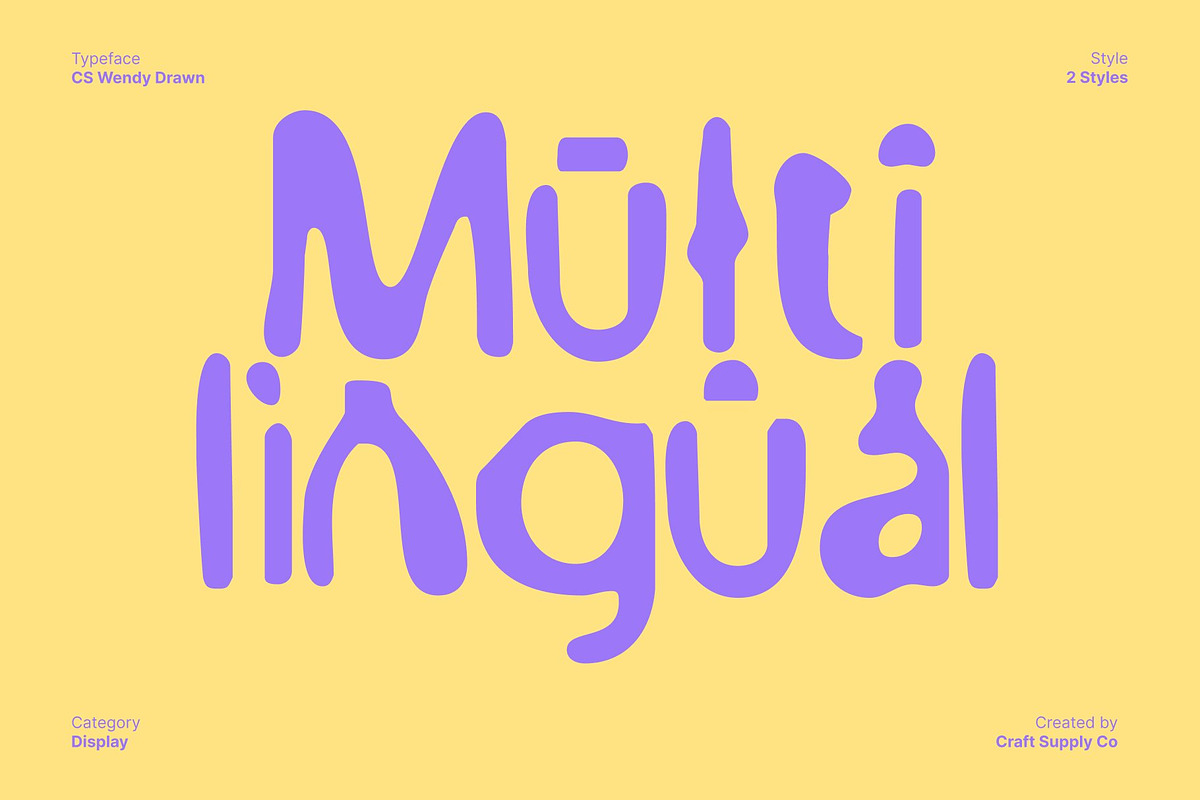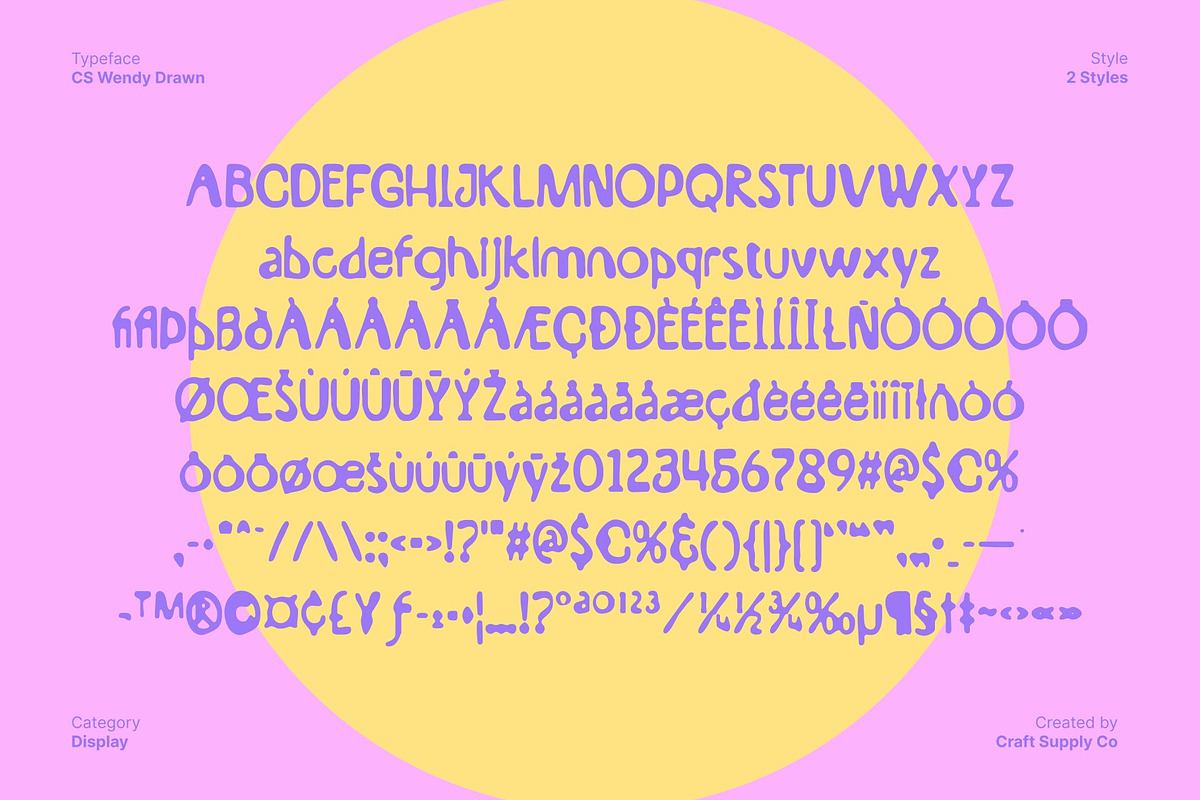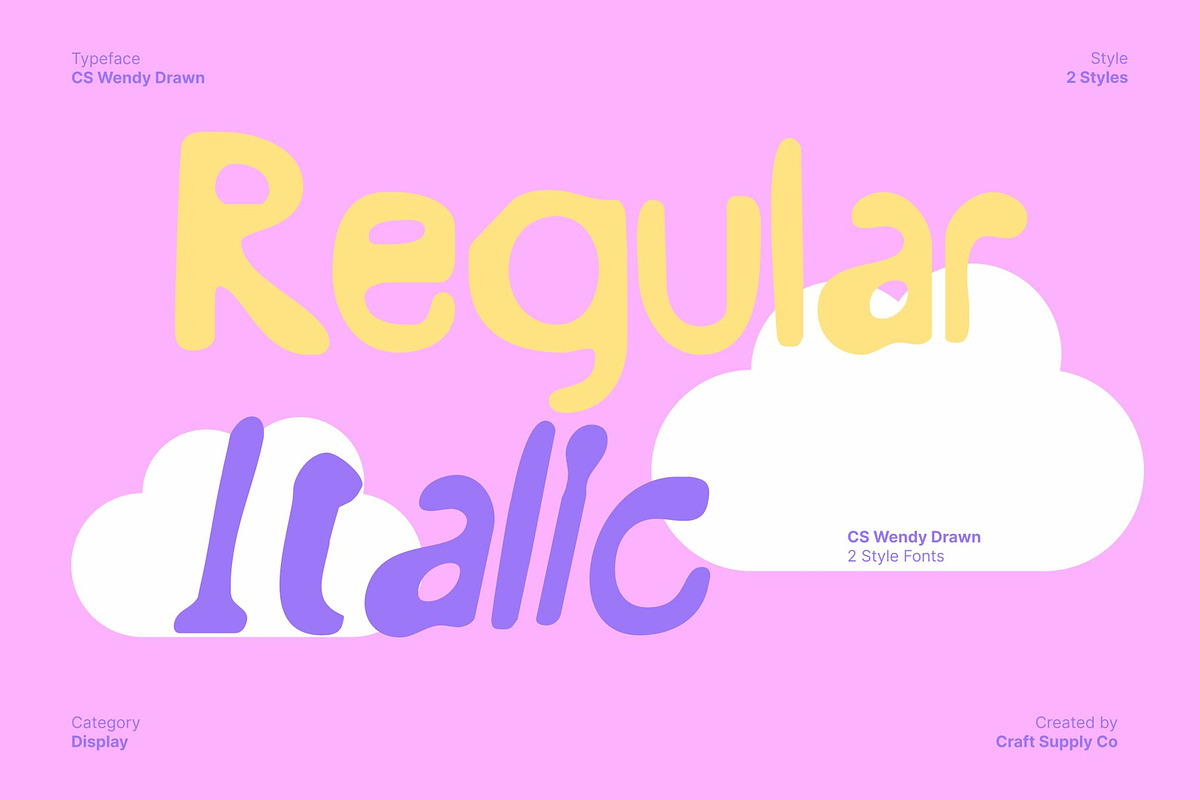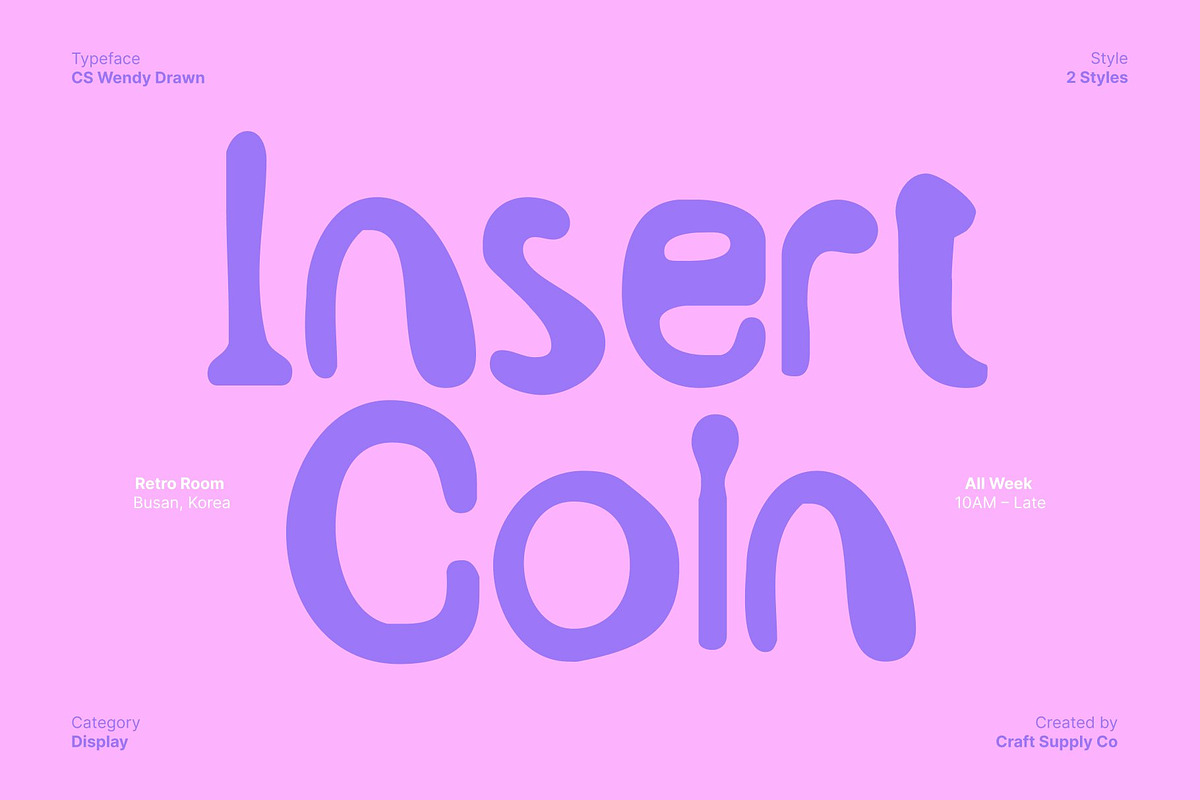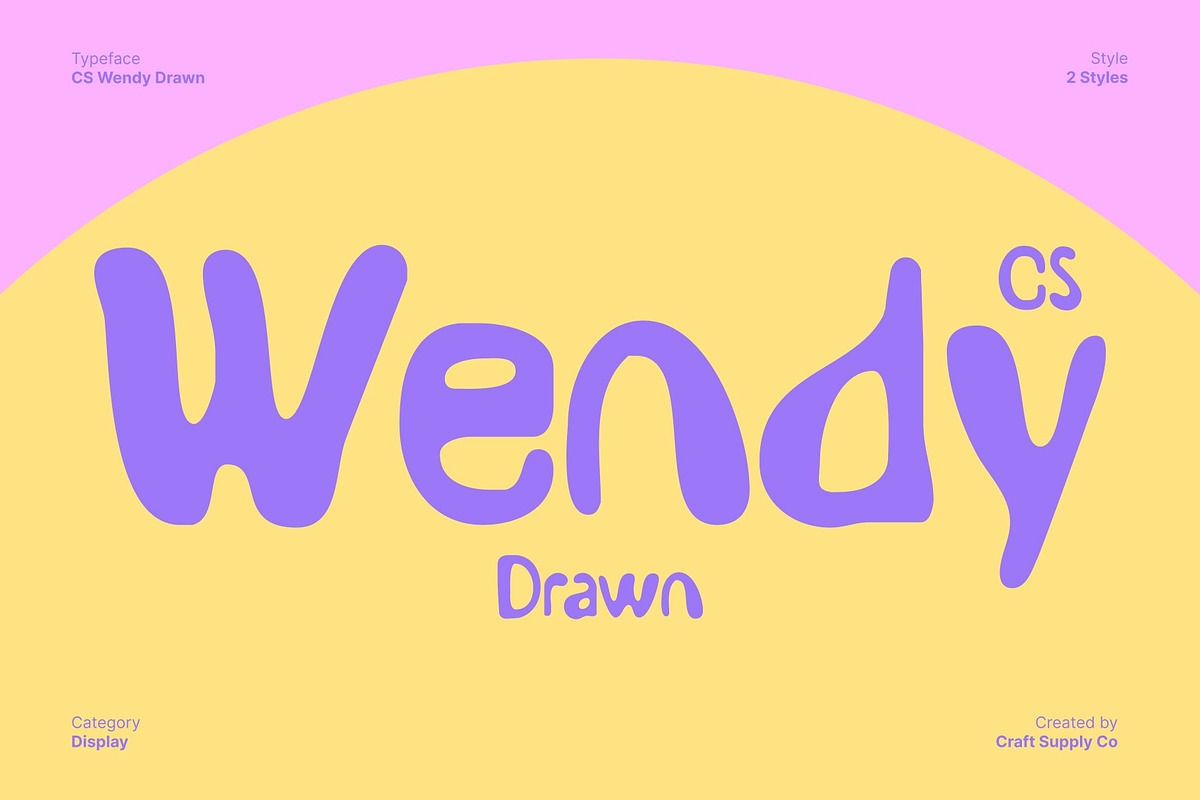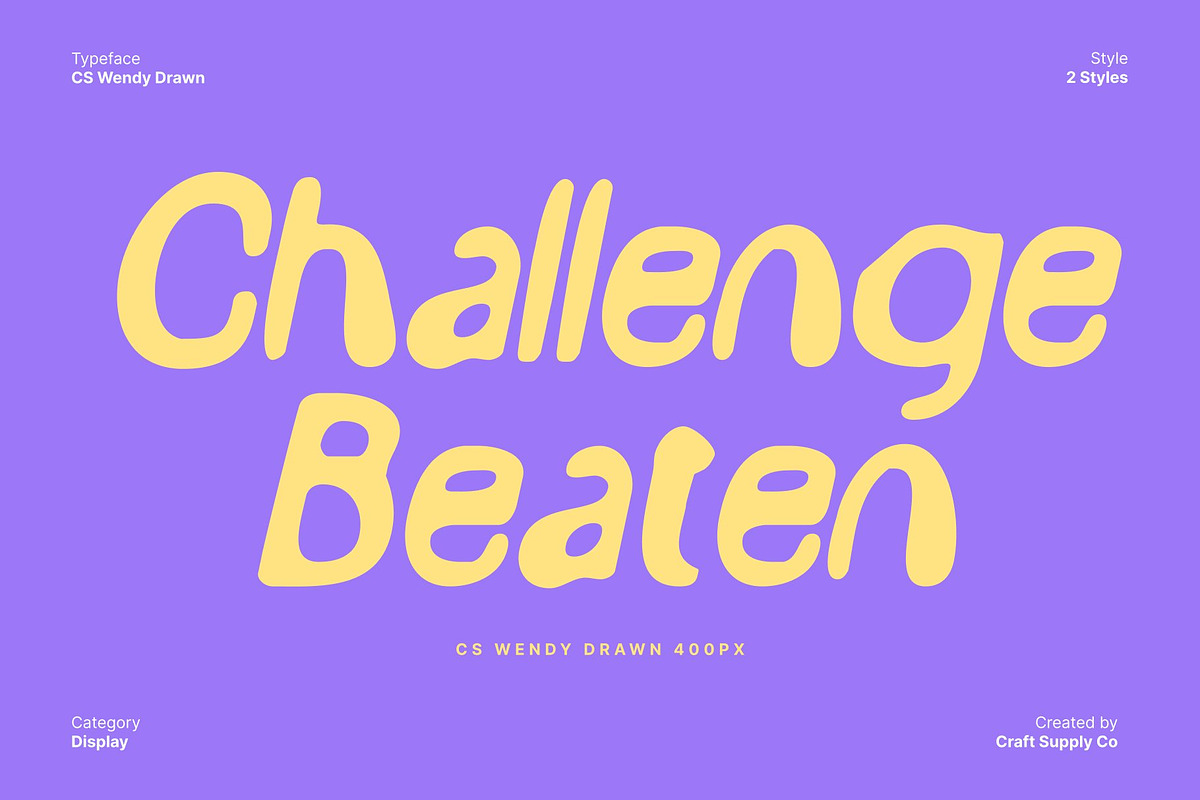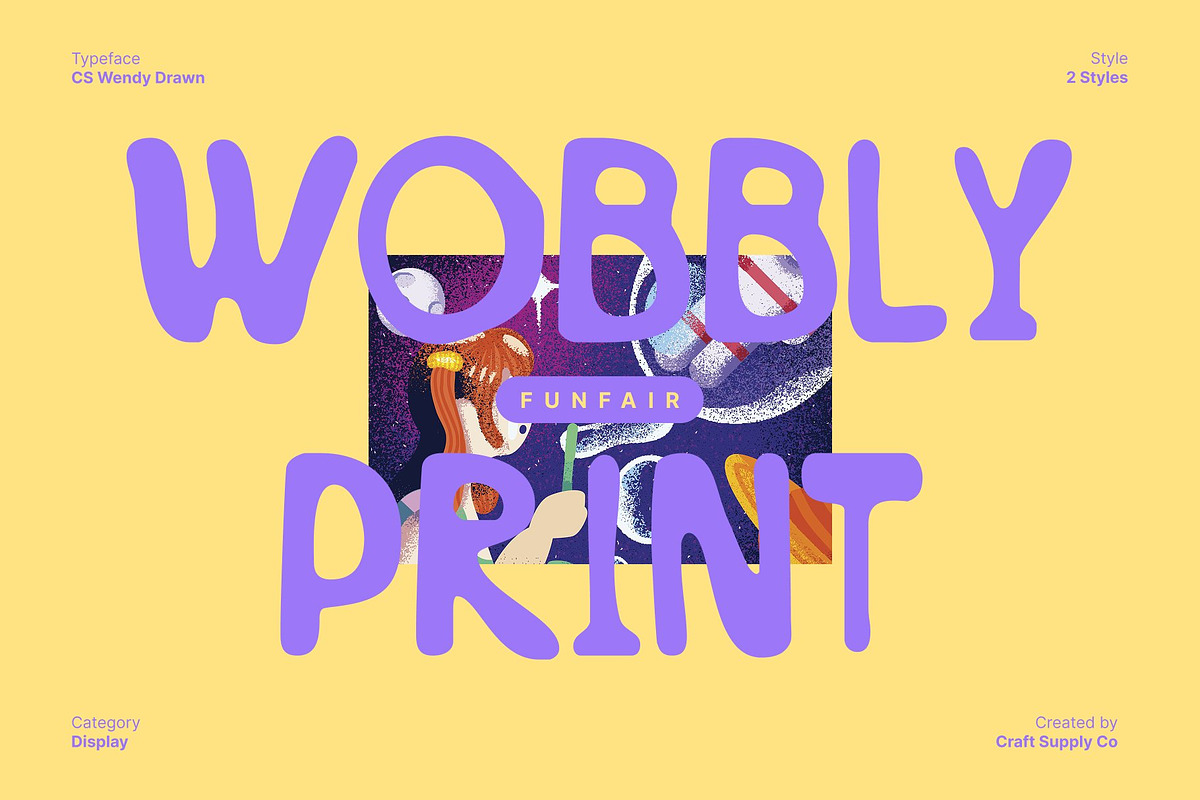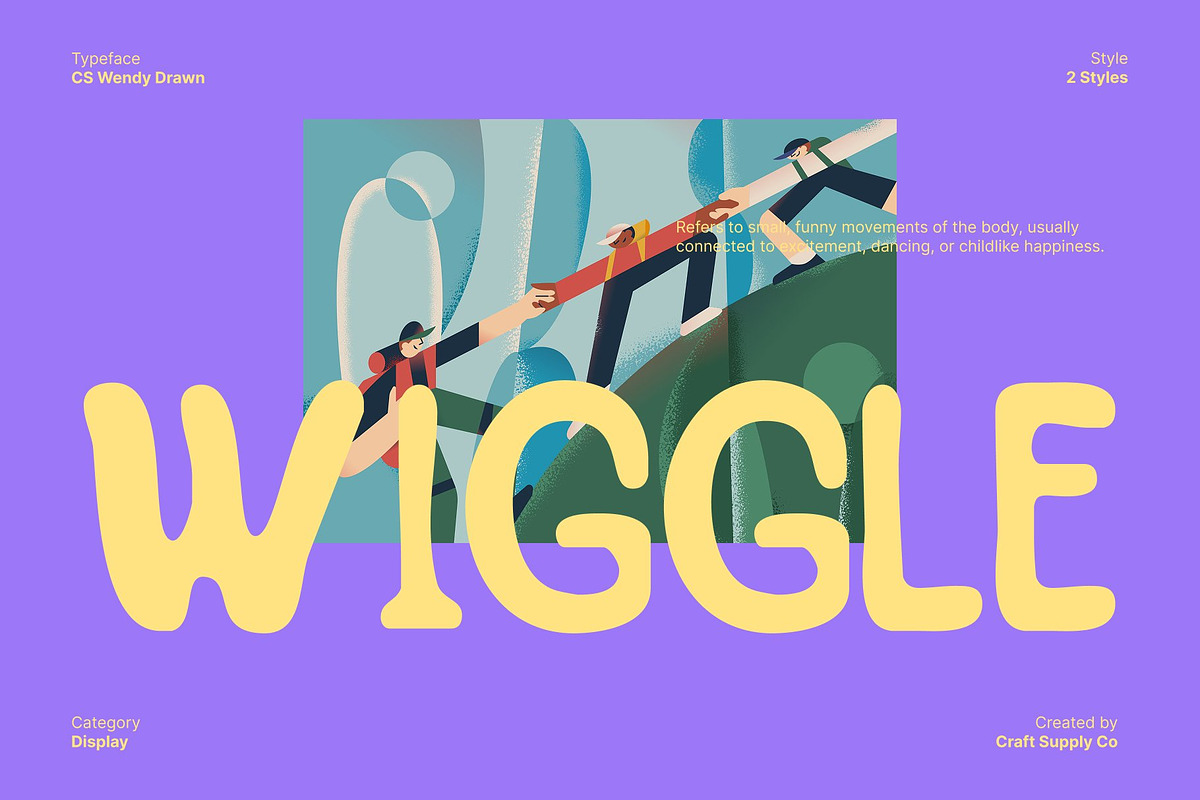
CS Wendy Drawn
CS Wendy Drawn – Etchy Display Font with Playful Imagination
Etchy Letterforms with Wavy, Cheerful Shapes This is a lively display font built from hand-drawn, etchy strokes and wavy, uneven letterforms. Its irregular shapes and sketch-like construction create a funky, cheerful personality that instantly feels playful and expressive. The organic lines give the font a spontaneous look, making every word feel animated and full of charm.
Hand-Drawn Style that Sparks Creativity Designed to feel free-spirited and imaginative, brings a sense of joy and storytelling to typography. The drawn texture adds depth and movement, as if the letters were casually sketched by hand. This natural imperfection gives the font warmth and character, encouraging creative layouts that feel friendly and full of life.
Perfect for Children’s Media and Learning Designs This font is especially well suited for children’s books, educational materials, toys, activity sheets, and playful learning platforms. Its approachable and fun appearance helps engage young audiences, making information feel less formal and more inviting. The cheerful rhythm of the letterforms keeps designs visually exciting without feeling overwhelming.
Ideal for Whimsical Branding and Creative Projects Beyond kids-focused designs, this font works beautifully for whimsical branding, creative packaging, event graphics, and playful promotions. When a project calls for personality, imagination, and a light-hearted tone, this font delivers effortlessly. With its etchy texture and funky energy, adds charm and creative expression to any design.
- CS Wendy Drawn Regular
- CS Wendy Drawn Italic